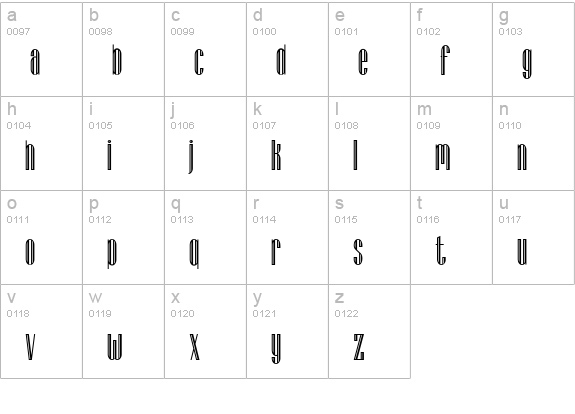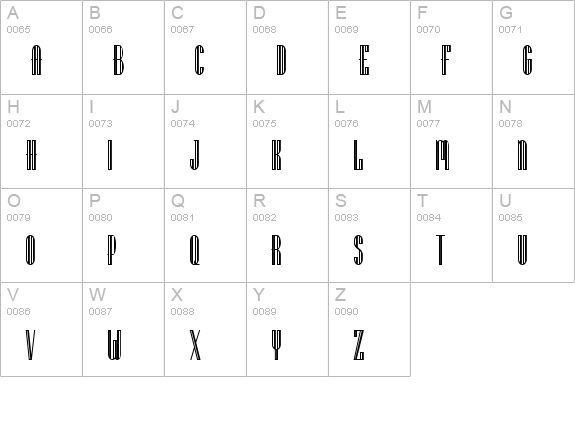
Lagniappe Inline NF Font Details
Lagniappe Inline NF font is a stunning display typeface that exudes a sense of elegance and sophistication. With its intricate inline design and sleek curves, this font is perfect for adding a touch of style to any project. Whether you're designing a logo, creating a poster, or crafting a unique branding identity, Lagniappe Inline NF font will elevate your work to the next level. The best part? Lagniappe Inline NF font is available for free download at FontsMarket.com. This means you can access this exquisite font without any cost, making it a valuable addition to your font collection. Don't miss out on the opportunity to enhance your designs with this beautiful typeface. Download Lagniappe Inline NF font today and let your creativity shine!